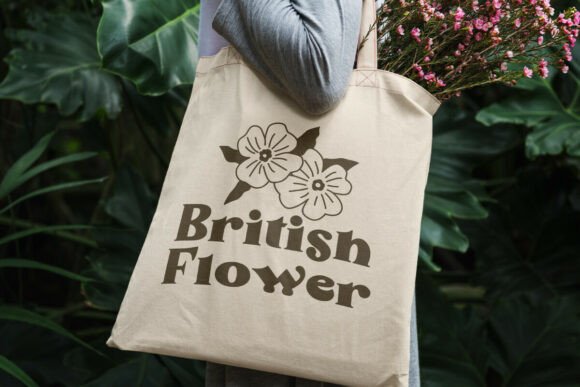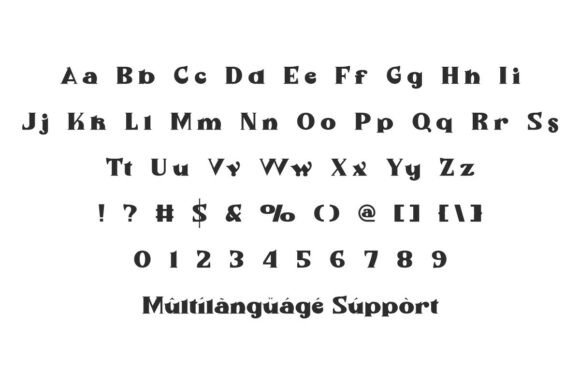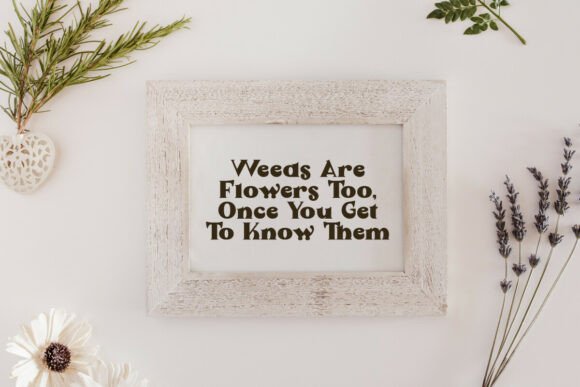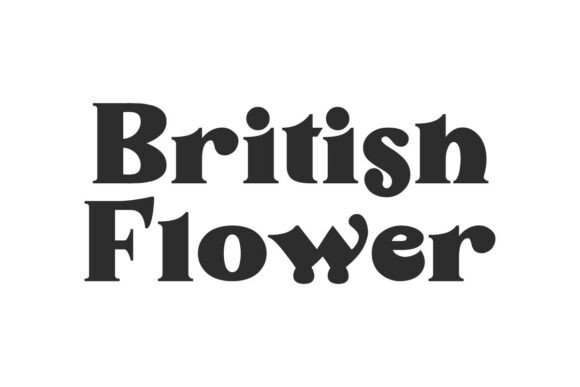
Introducing British Flower Font: Elevate Your Designs with Timeless Elegance
In the world of typography, a well-crafted font can make all the difference in elevating your designs from ordinary to extraordinary. If you’re a designer, craftsperson, or business owner looking for a unique and elegant font to add a touch of sophistication to your projects, look no further than the British Flower Font. This stunning serif display font boasts a modern retro flair, carefully designed to exude strength and refinement, making it perfect for a wide range of creative applications.
A Font that Exudes Elegance and Sophistication
British Flower Font is a masterfully crafted typeface that combines the classic charm of serif fonts with a modern twist. Each character is uniquely designed to be aesthetically pleasing, resulting in a font that is both elegant and refined. The font’s modern retro touch adds a dash of whimsy and playfulness, making it perfect for designers and crafters who want to add a touch of personality to their work.
One of the standout features of British Flower Font is its versatility. This font is designed to complement a wide range of creative needs, from banners and billboards to blogs and brand logos. Whether you’re working on a large-scale advertising campaign or a small-scale craft project, British Flower Font is the perfect choice. Here are just a few examples of the many ways you can use this incredible font:
- Banners and billboards: Make a bold statement with eye-catching headings and titles.
- Blogs and websites: Add a touch of elegance to your online presence with beautifully styled text.
- Brand logos: Create a lasting impression with a unique and memorable logo.
- Brochures and flyers: Stand out from the crowd with stylish and sophisticated text.
- Embossed designs: Add a touch of luxury to your designs with beautifully embossed text.
- Headers and labels: Create eye-catching headings and labels that grab attention.
- Mockups and posters: Bring your designs to life with stunning typography.
- Quotes and stationery: Add a touch of elegance to your quotes and stationery.
- Templates and titles: Create stunning templates and titles that showcase your brand’s personality.
Perfect for a Variety of Industries and Professions
British Flower Font is an incredibly versatile font that can be used by a wide range of industries and professions. Here are just a few examples:
- Cafes and restaurants: Add a touch of elegance to your menus, signage, and branding.
- Clothing brands: Create stunning logos, labels, and packaging that reflect your brand’s personality.
- Corporate clients: Elevate your business’s online presence with sophisticated typography.
- Florists and gardeners: Add a touch of whimsy and charm to your branding and marketing materials.
- Graphic designers: Expand your font library with a unique and elegant serif display font.
- Handicrafts and home furniture: Add a touch of elegance to your product labels, packaging, and marketing materials.
- Photo studios: Create stunning titles, captions, and quotes that showcase your photography skills.
- Restaurants and skincare: Elevate your branding and marketing materials with sophisticated typography.
Why Choose British Flower Font?
With so many fonts available, why choose British Flower Font? Here are just a few reasons why this font stands out from the crowd:
- Unique and elegant design: Each character is carefully crafted to be aesthetically pleasing and refined.
- Versatile: Perfect for a wide range of creative applications and industries.
- Timeless: The font’s classic charm ensures it will remain stylish and relevant for years to come.
- Easy to use: British Flower Font is designed to be easy to read and use, even for those without extensive design experience.
In conclusion, British Flower Font is an exceptional serif display font that offers a unique blend of elegance, sophistication, and playfulness. With its wide range of creative applications and versatility, this font is perfect for designers, craftspersons, and business owners looking to elevate their designs and add a touch of timeless elegance. Experience the beauty and refinement of British Flower Font today and take your designs to the next level!